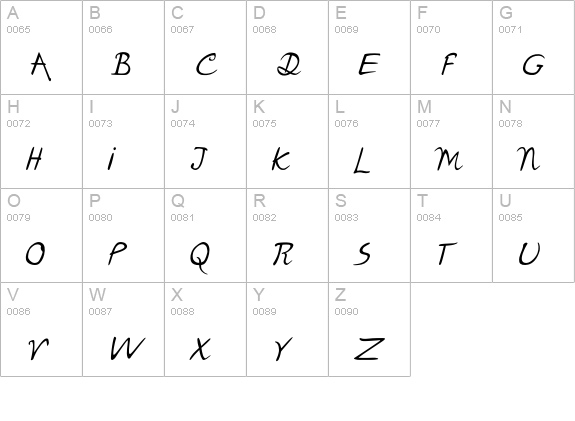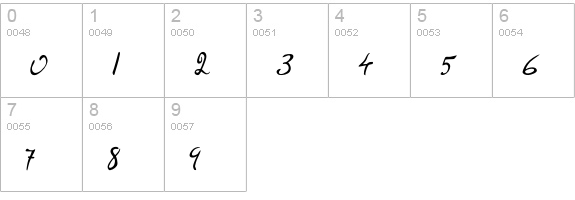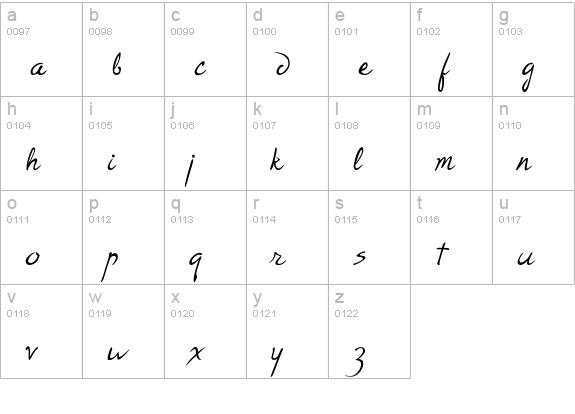
P22RodinRegular Font Details
P22RodinRegular is a stunning font that exudes elegance and sophistication. Inspired by the iconic sculptures of Auguste Rodin, this typeface captures the essence of his masterpieces in every character. With its sleek and fluid lines, P22RodinRegular brings a sense of artistic beauty to any design project. This font boasts a perfect balance between classic and contemporary elements, making it versatile for various applications. Whether used for headlines, logos, or body text, P22RodinRegular commands attention and adds a touch of refinement to any composition. One of the most intriguing aspects of this font is its ability to convey emotion and depth. Each letter carries a unique sculptural quality, as if it were expertly carved from stone. The intricate details and carefully crafted curves make P22RodinRegular a true work of art in itself. The best part? P22RodinRegular is free to download at FontsMarket.com. This means that you can enhance your designs with this extraordinary font without spending a penny. It's a fantastic opportunity to add a touch of sophistication to your creative projects, whether you're a professional designer or an aspiring artist. With P22RodinRegular, you'll have access to a magnificent typeface that embodies the timeless beauty of Rodin's sculptures. Its versatility, elegance, and availability make it a must-have for designers and artists alike. So why wait? Visit FontsMarket.com today and unleash the artistic potential of P22RodinRegular.